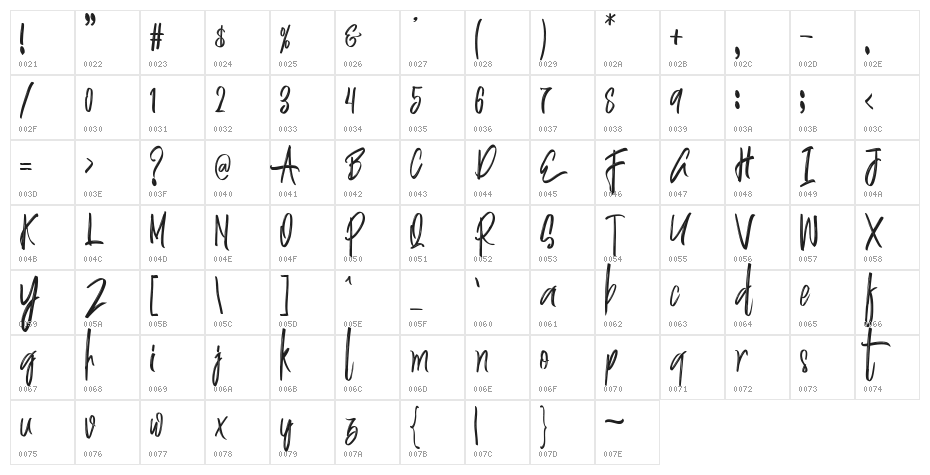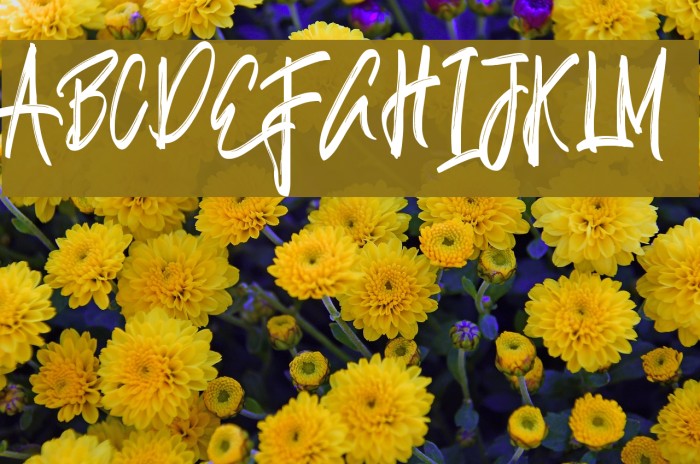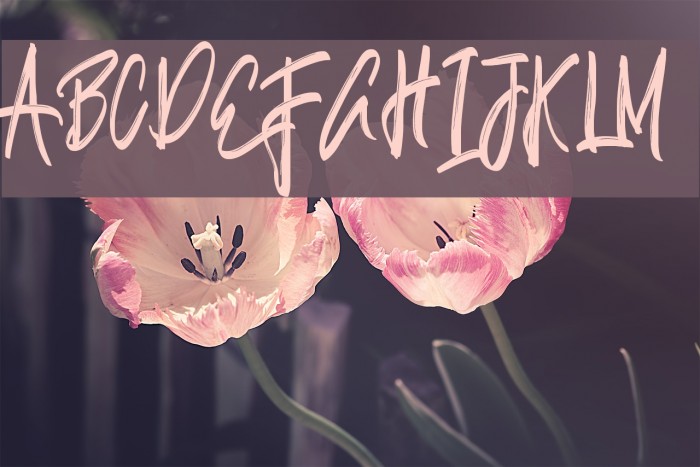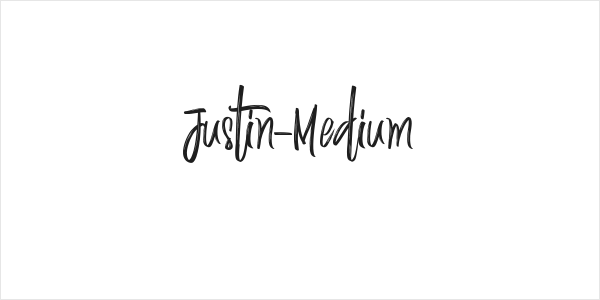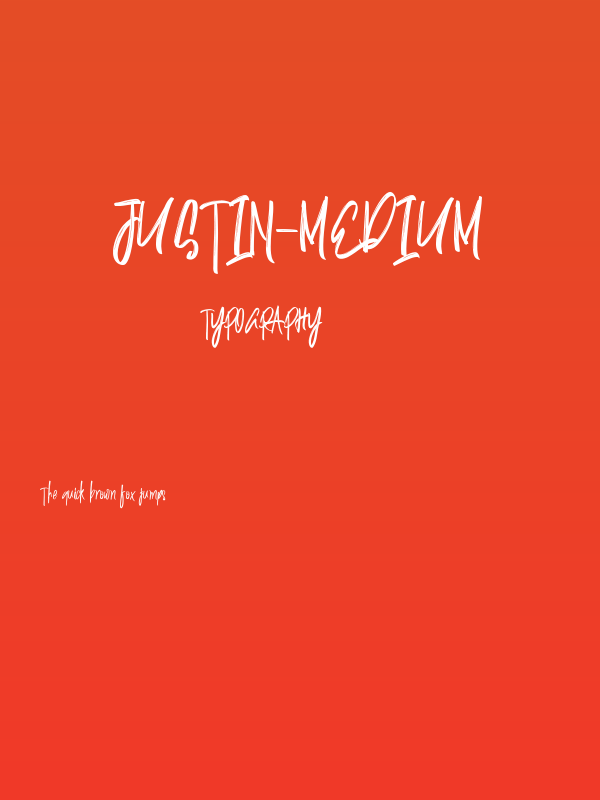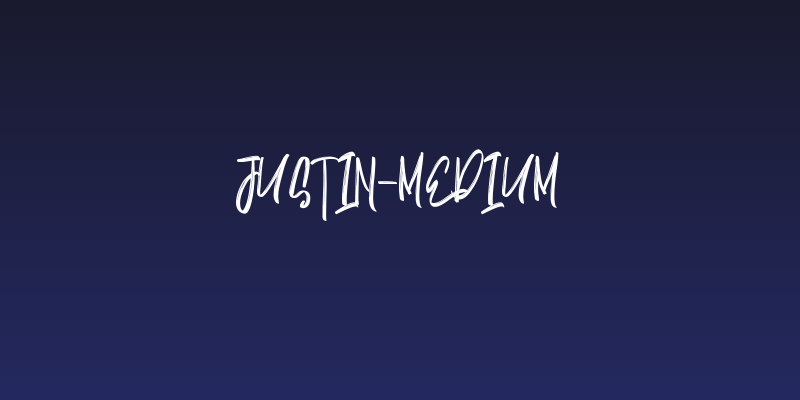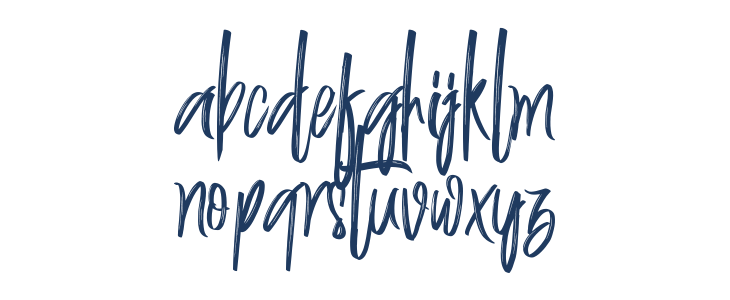
Justin-Medium Font
This font exudes a dynamic and energetic vibe with its bold, handwritten style. The characters are fluid and slightly slanted, giving a sense of motion and personality. The uppercase letters are tall and expressive, while the lowercase letters maintain a consistent flow, enhancing readability. Numbers and special characters are crafted with the same lively spirit, making them stand out. The overall appearance is casual yet impactful, suitable for projects that require a personal touch.
Overall StyleModern, Decorative
Proposed ProjectsIdeal for branding, social media graphics, event invitations, and creative posters.